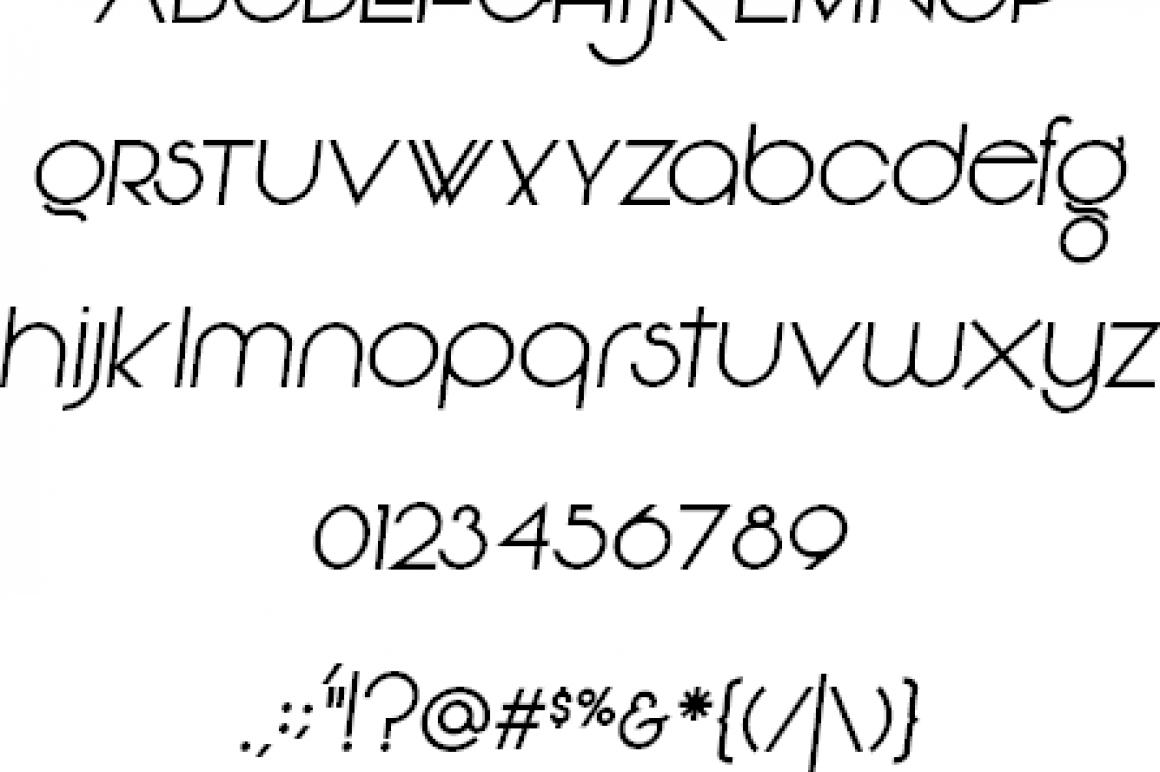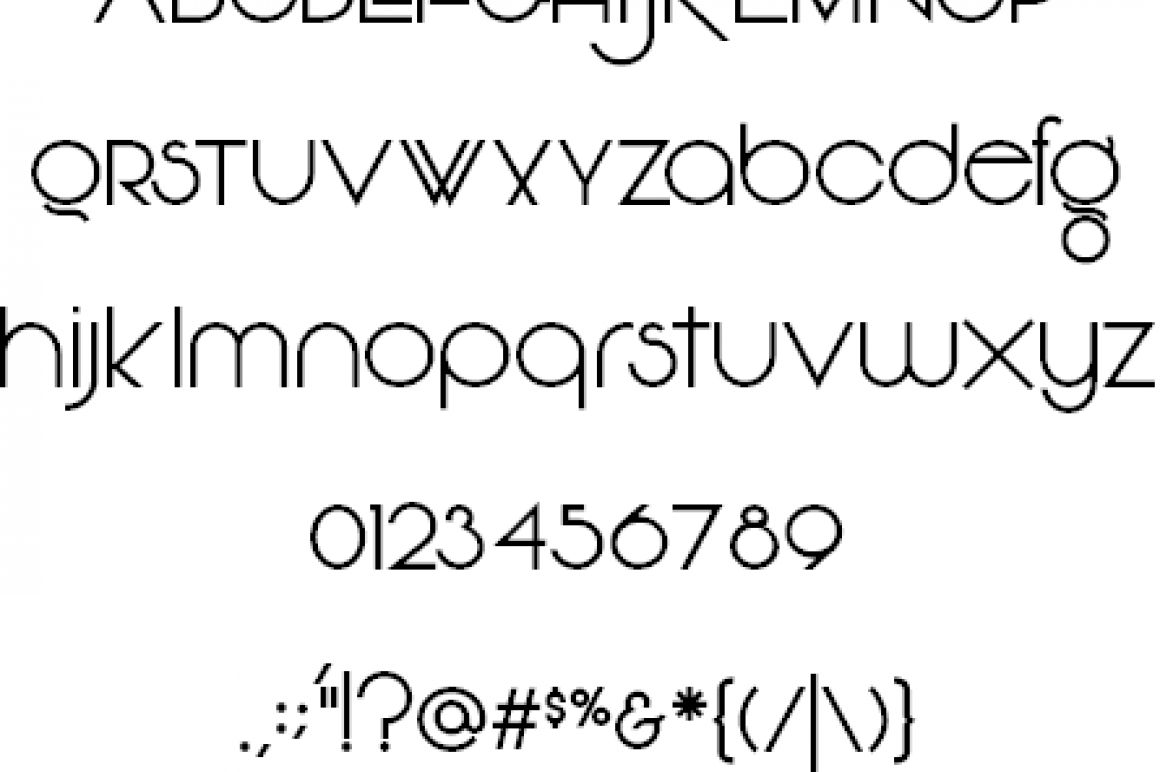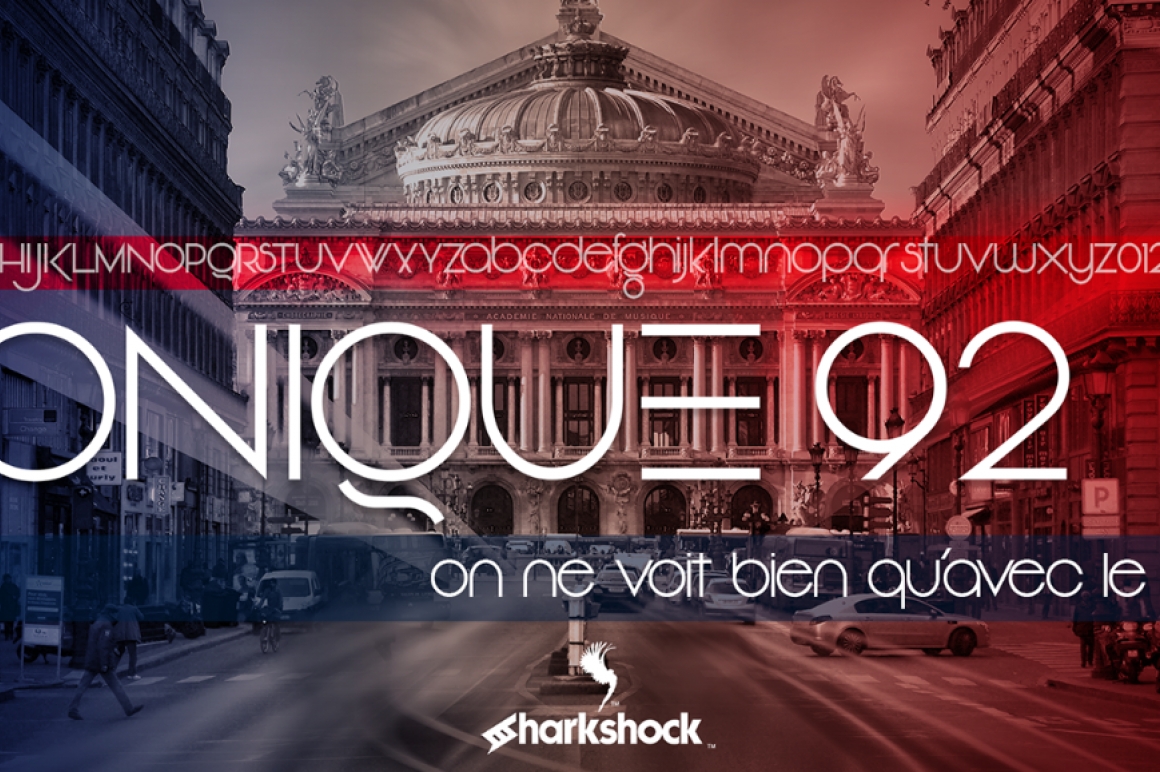
Vonique 92 Font
by Sharkshock
Bonjour font fans! We stamp our passports once more and hit the streets of Paris for another version of Vonique 64. Within a few short months it replaced "Grinched" as Sharkshock's most popular download. This urban, yet elegant display font has been revamped with redesigned lowercase
companions to compliment the existing set. Artistic alternates were added for several characters along with 2 stylistic sets. As is the case with display fonts, this one is not meant to be used in body text but to serve as an ornamental solution for logos, titles and more. More emphasis was put on